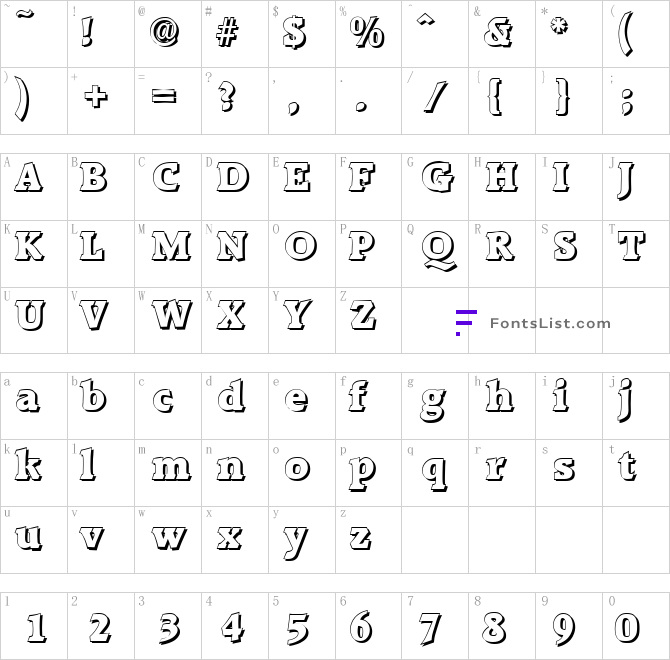
AliBeckerShadow-Heavy-Regular.ttf is a very beautiful artistic font, AliBeckerShadow-Heavy-Regular.ttf is widely used in the design and printing of various books and pictures,AliBeckerShadow-Heavy-Regular.ttf has a strong visual impact,AliBeckerShadow-Heavy-Regular.ttf is a commonly used font in newspapers, magazines and books, and is used in posters, e-commerce Poster design, store design, logo design, font design and other fields.AliBeckerShadow-Heavy-Regular.